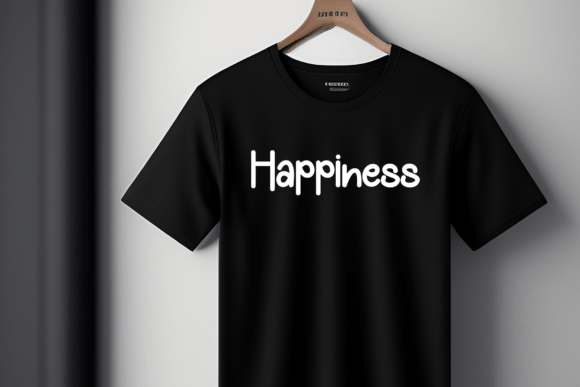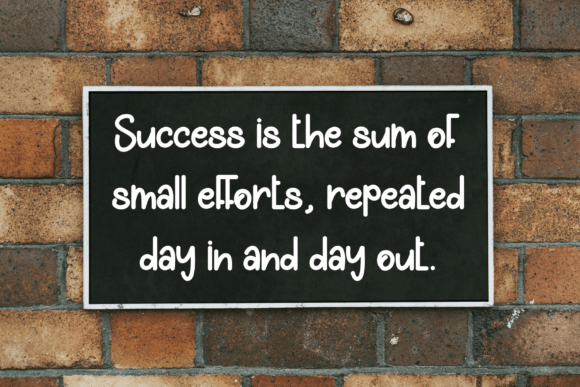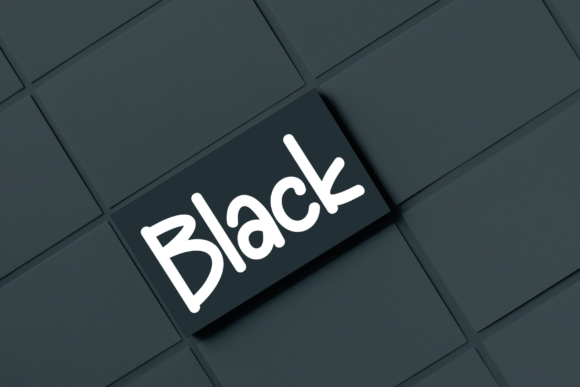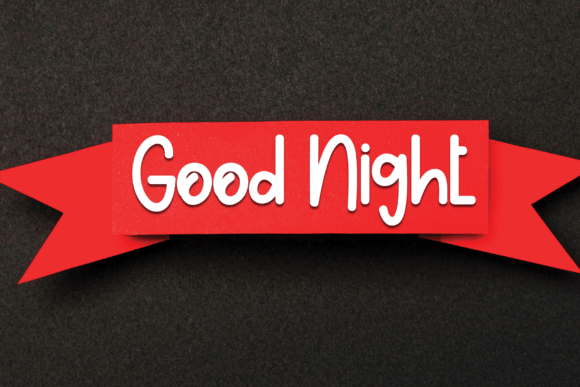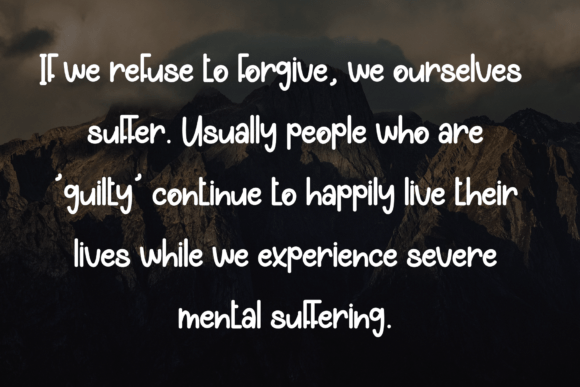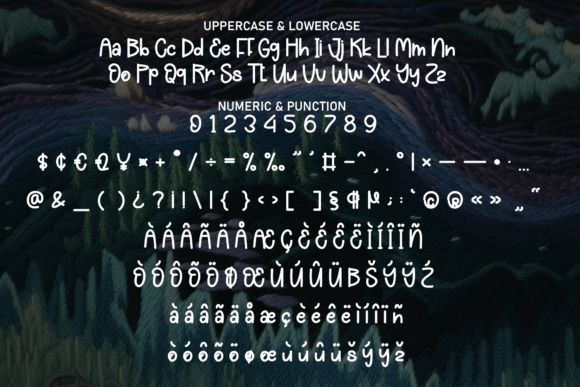
The Magic of Embroidery Moonlight Font: A Designer’s New Best Friend
I’ll never forget the time I was working on a branding project for a cozy little café, and I just couldn’t find the right font to capture their warm and inviting atmosphere. The client wanted something that felt like a warm hug, but still looked professional and clean. That’s when I stumbled upon Embroidery Moonlight Font, and let me tell you, it was love at first sight! ✨
An Honest Review of Embroidery Moonlight Font
- ✅ Clean and neat design that’s perfect for display and headlines
- ✨ Warm and approachable style that adds a touch of personality to any project
- ✅ Balanced letterforms that offer great readability and charm
- ✅ Perfect for branding, packaging, and everyday designs
While Embroidery Moonlight Font is an amazing addition to any design project, there are a few things to keep in mind: 🤔
- ⚠️ Some of the more intricate details might get lost at very small font sizes
- ⚠️ Not ideal for body text or long paragraphs, as it’s best used for headlines and titles
The Story Behind Embroidery Moonlight Font
Embroidery Moonlight Font was designed with the intention of creating a warm and inviting typeface that would bring a touch of personality to any design project. The designer wanted to create a font that felt like a cozy sweater – something that’s both stylish and comfortable. And I think they definitely succeeded! 😊
| Font Name | Embroidery Moonlight Font |
Q: Is Embroidery Moonlight Font suitable for body text?
A: While Embroidery Moonlight Font is beautiful, it’s best used for headlines and titles. For body text, you might want to choose a font with better readability. 📖